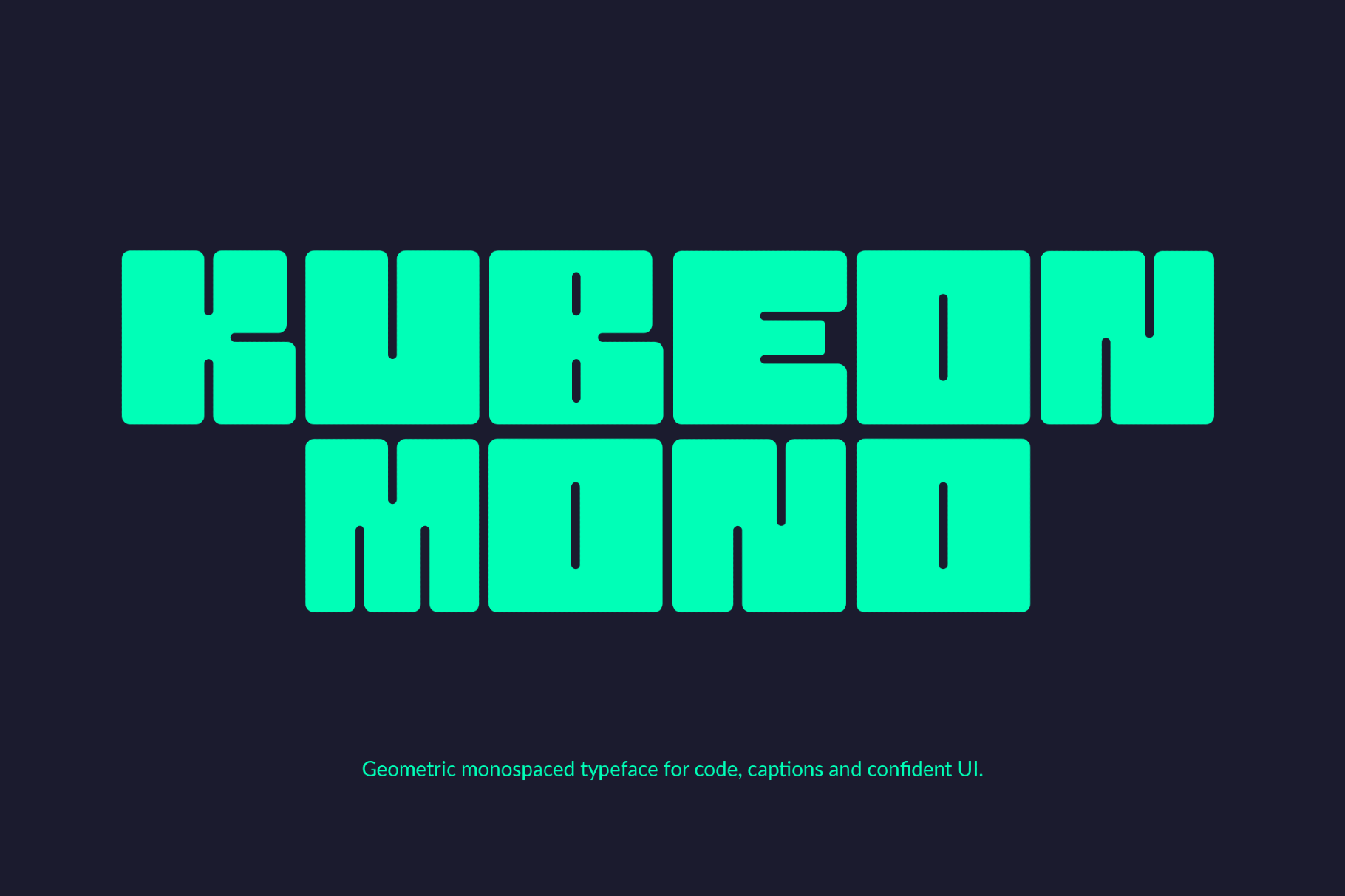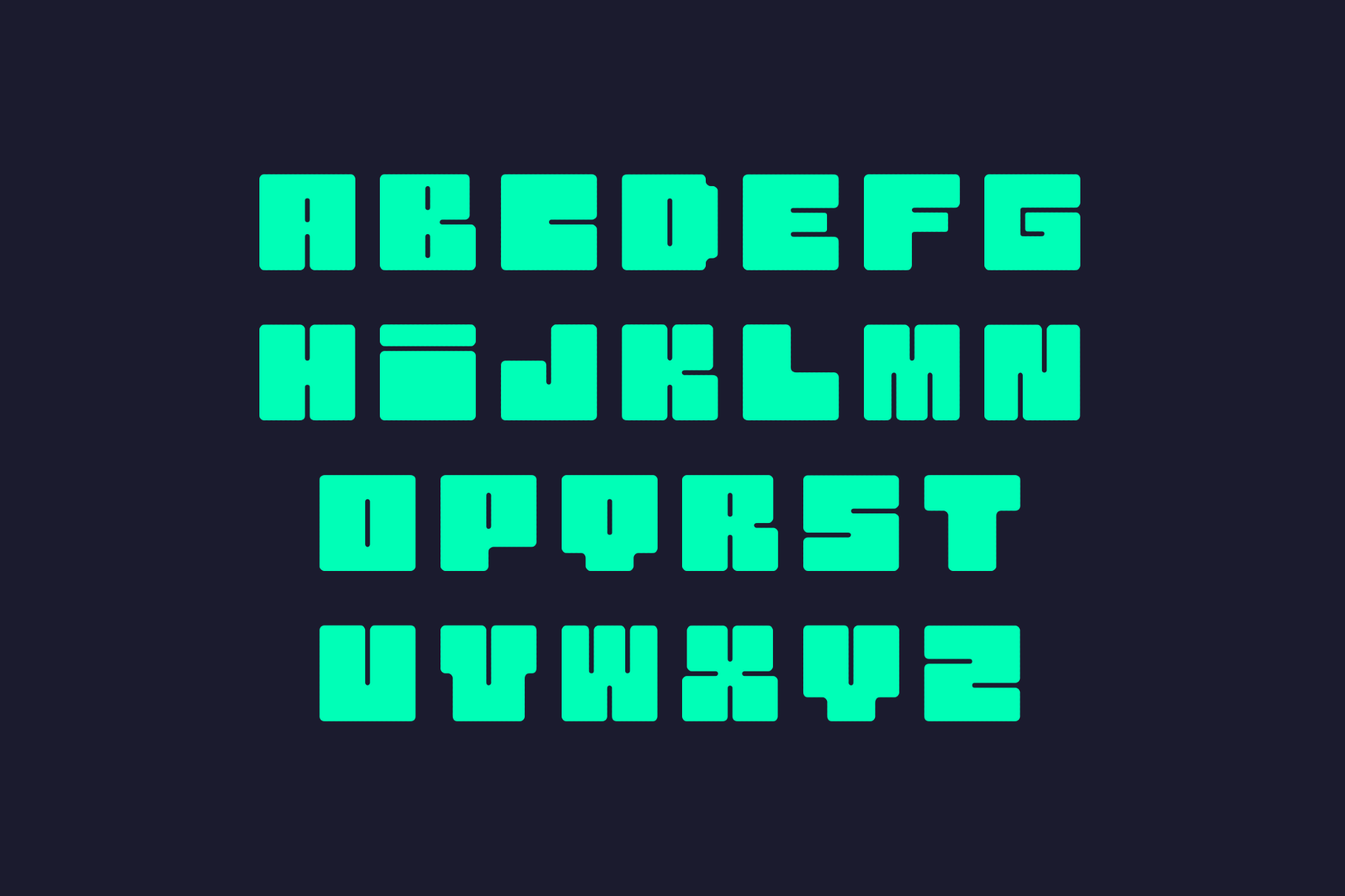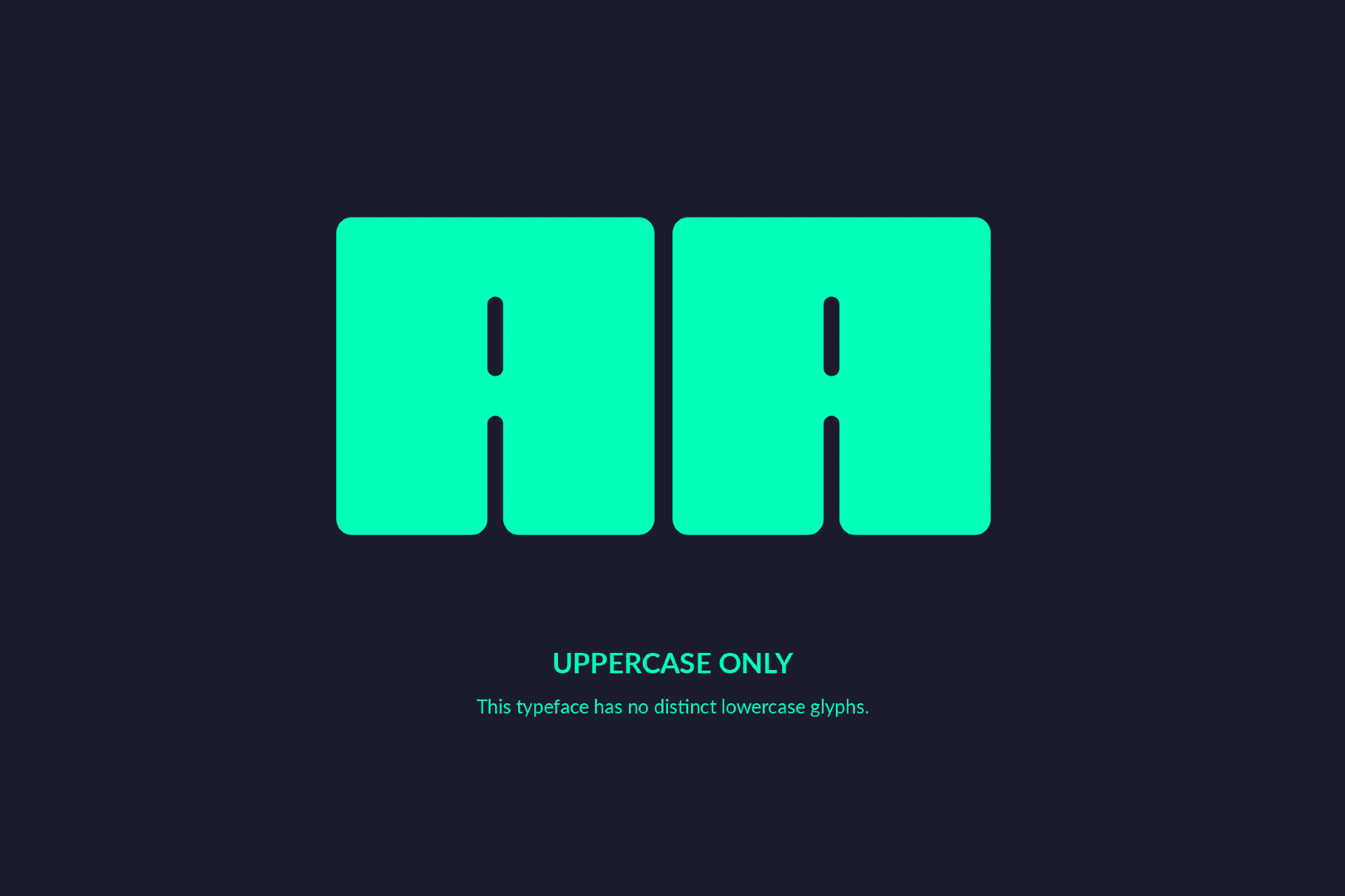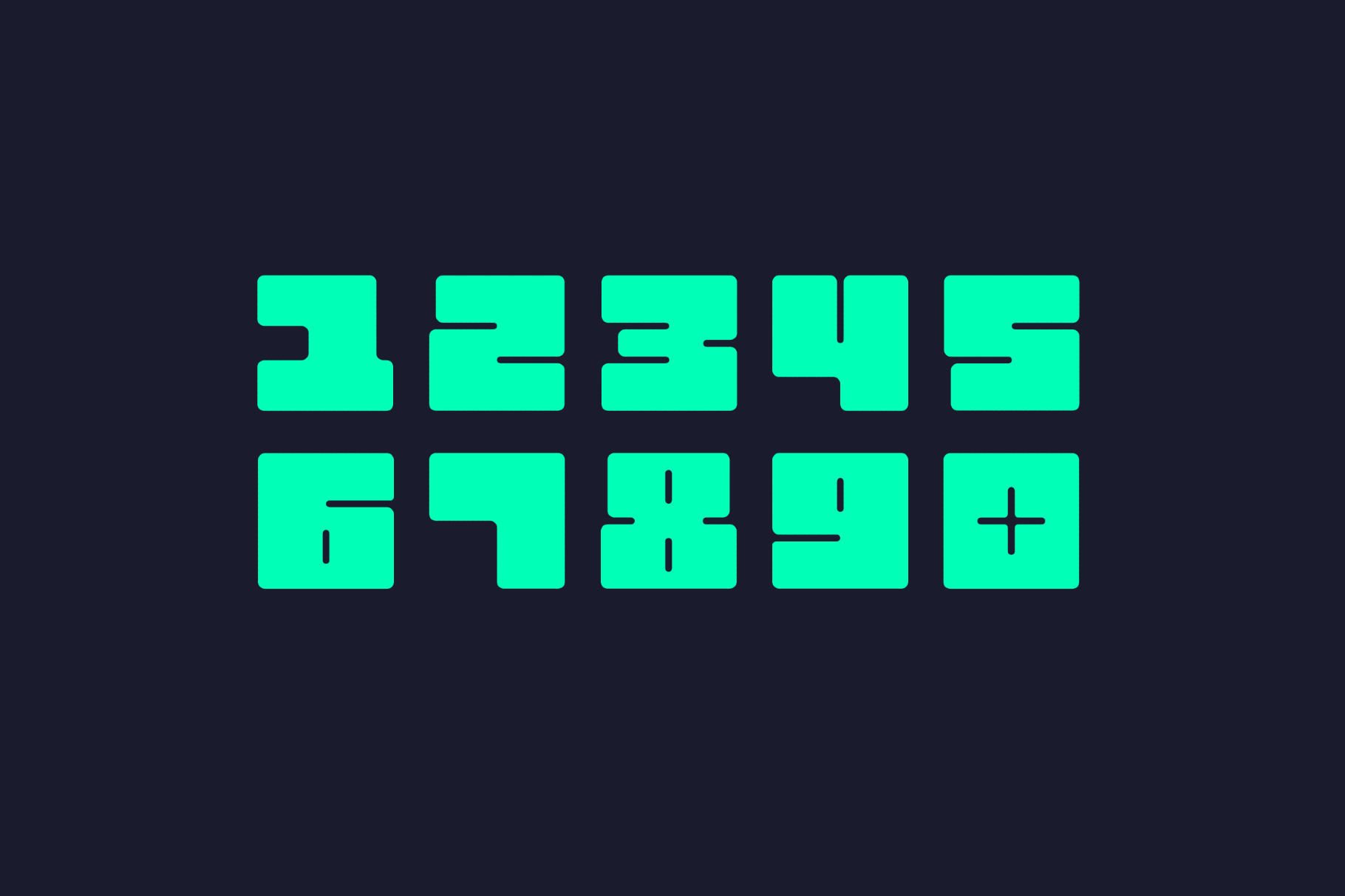
Kubeon Mono Font
Kubeon Mono is a square-built monospaced display font with the hard-edged clarity of modular architecture and sci-fi interface graphics, giving its strict grid a cool industrial pulse. It lands especially well in poster headlines, tech branding, album covers, editorial openers, packaging, motion graphics, and social visuals that want a sharp geometric accent.